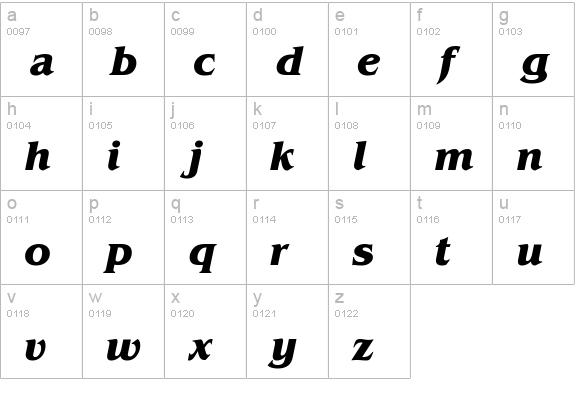
Benguiat Bold Italic BT is a strong, high-contrast, italic variant in the Benguiat typeface family \xE2\x80\x94 well suited to headlines, attention-grabbing titles, and strong calls-to-action.
Benguiat Bold Italic BT font is a striking and dynamic typeface that exudes a sense of elegance and sophistication. With its bold yet fluid design, this font is perfect for making a statement and grabbing attention. The italicized slant adds a touch of flair and style, making it ideal for projects that require a bold and artistic touch. What makes Benguiat Bold Italic BT font even more appealing is that it is available for free download at FontsMarket.com. This means that you can easily access this stunning font and use it for a wide range of creative projects without any cost. Whether you're designing a poster, logo, or website, Benguiat Bold Italic BT font is sure to make a bold and memorable impact. Download it today and elevate your designs with this eye-catching typeface.